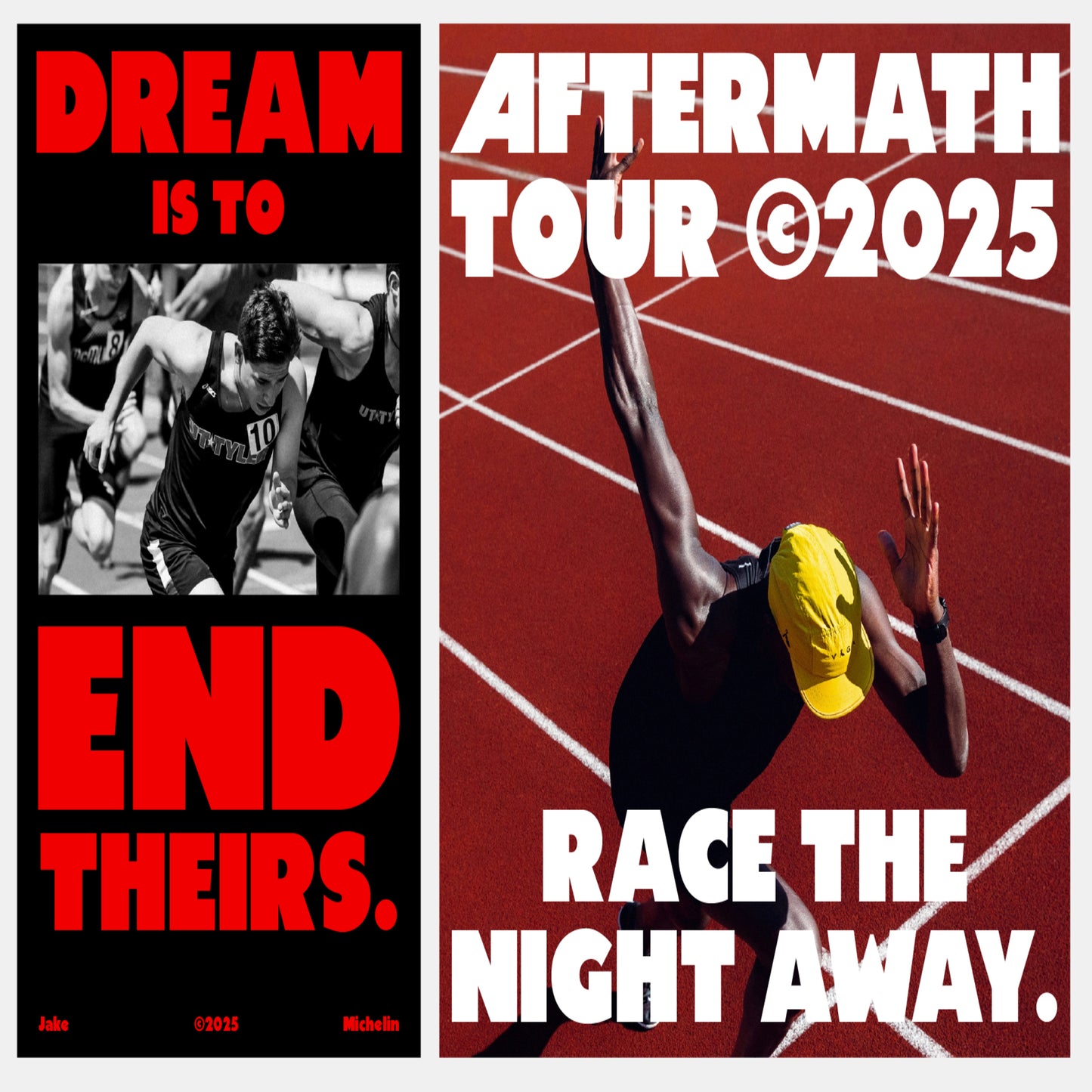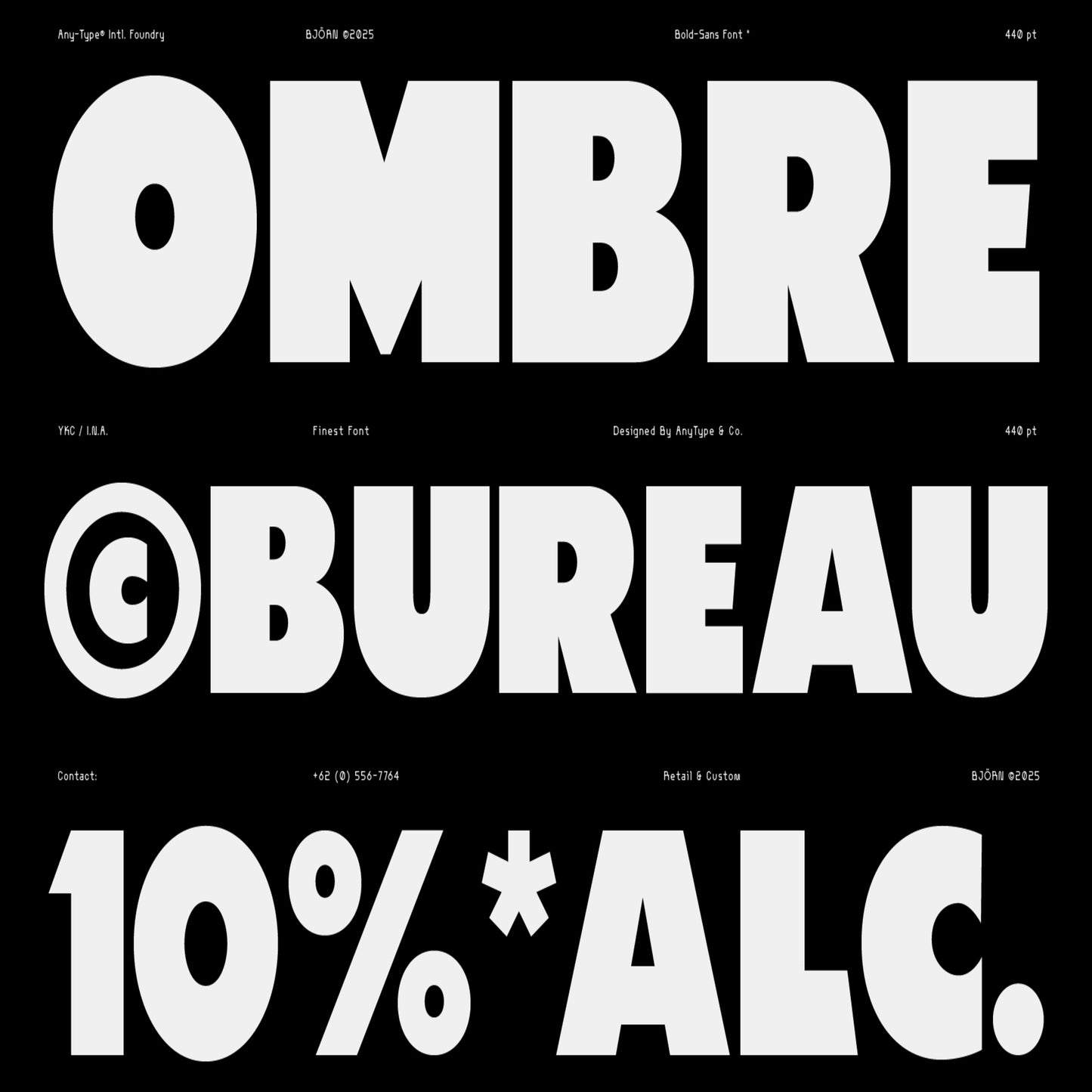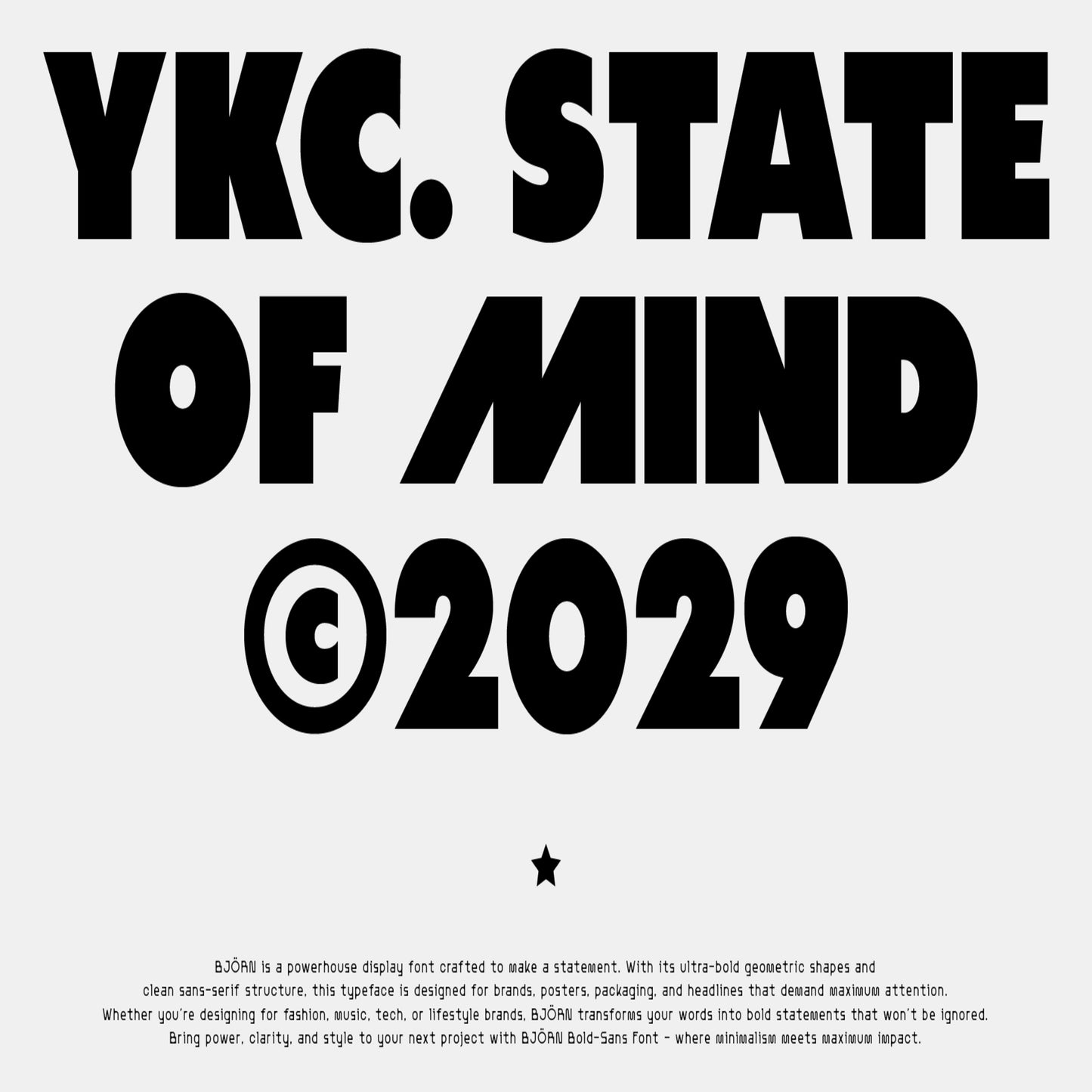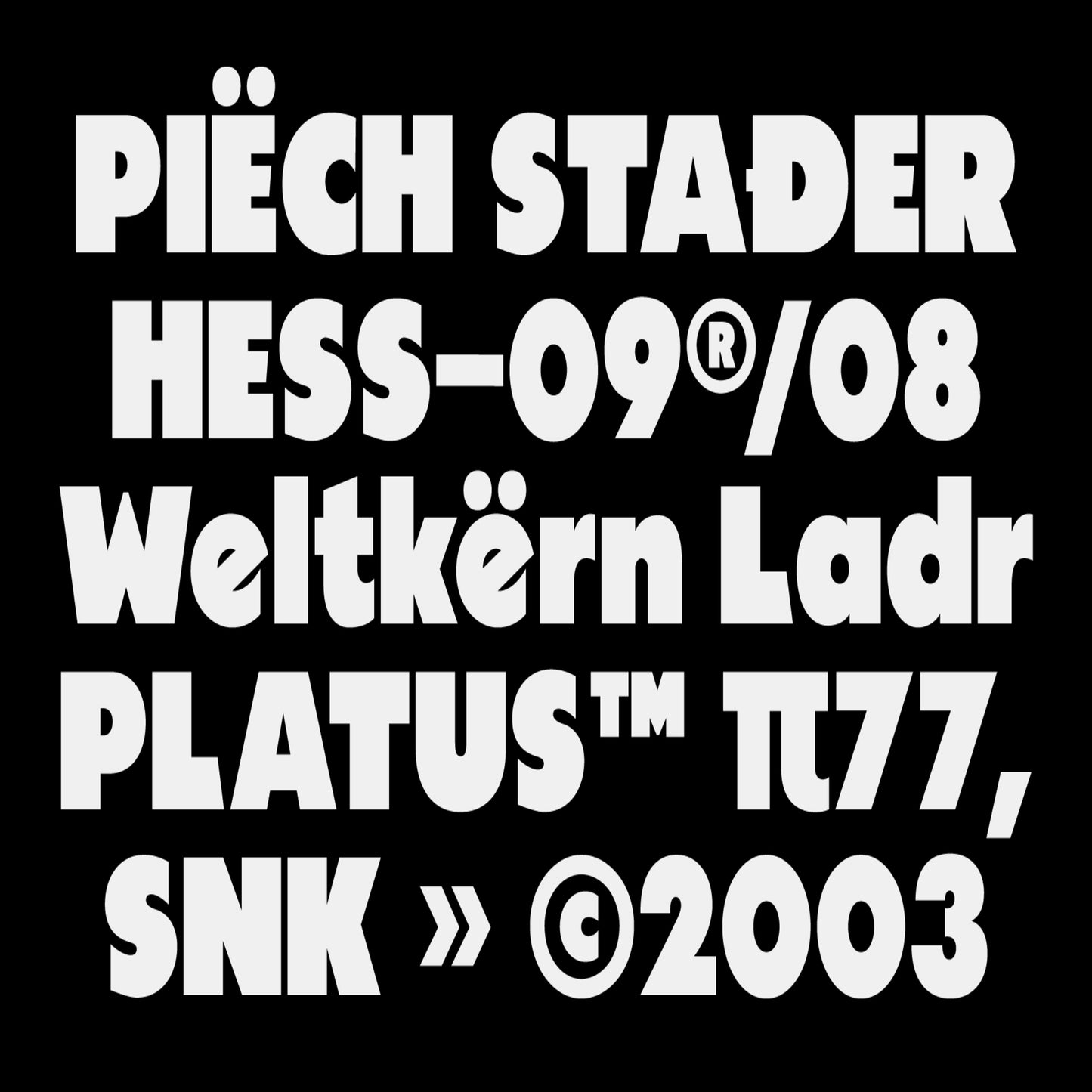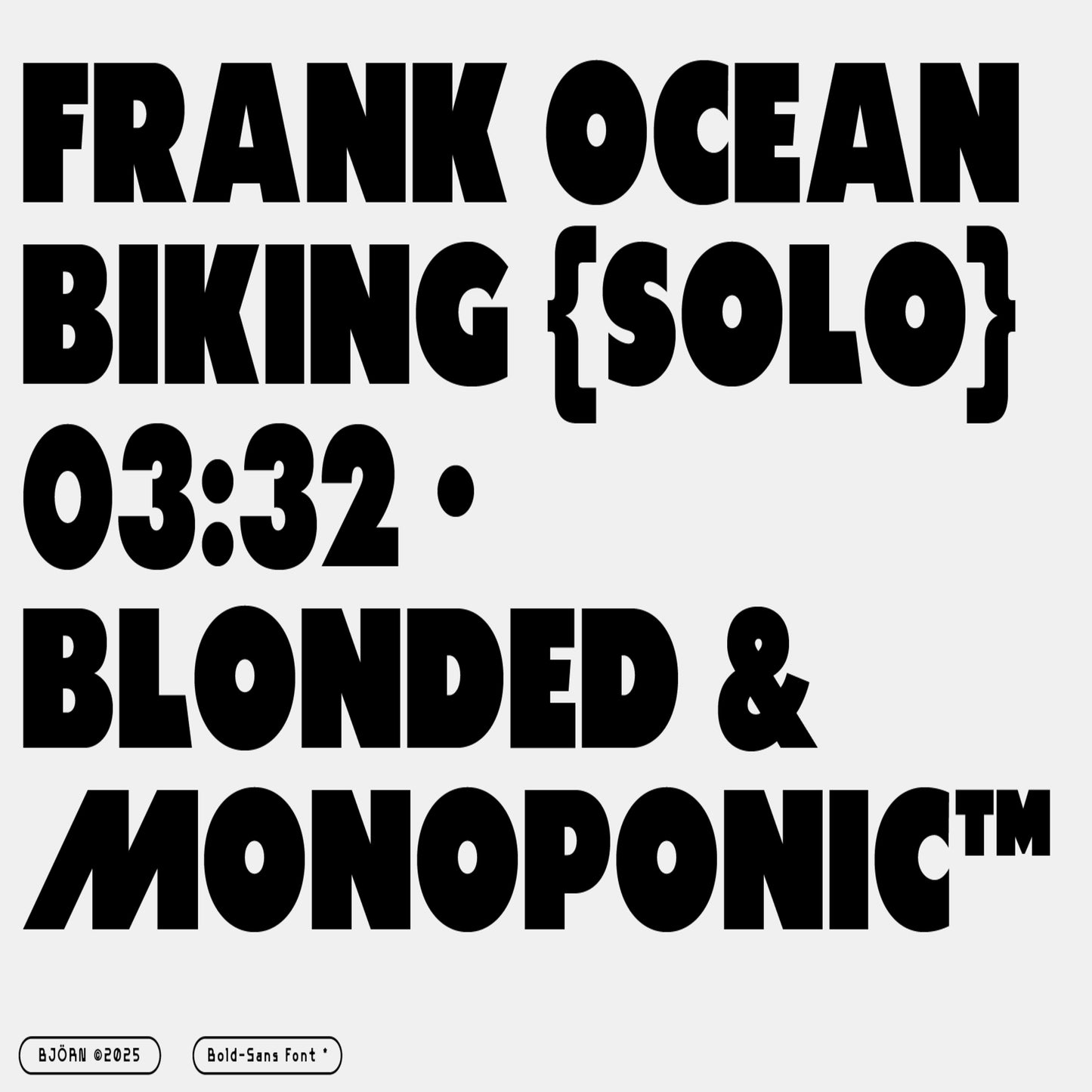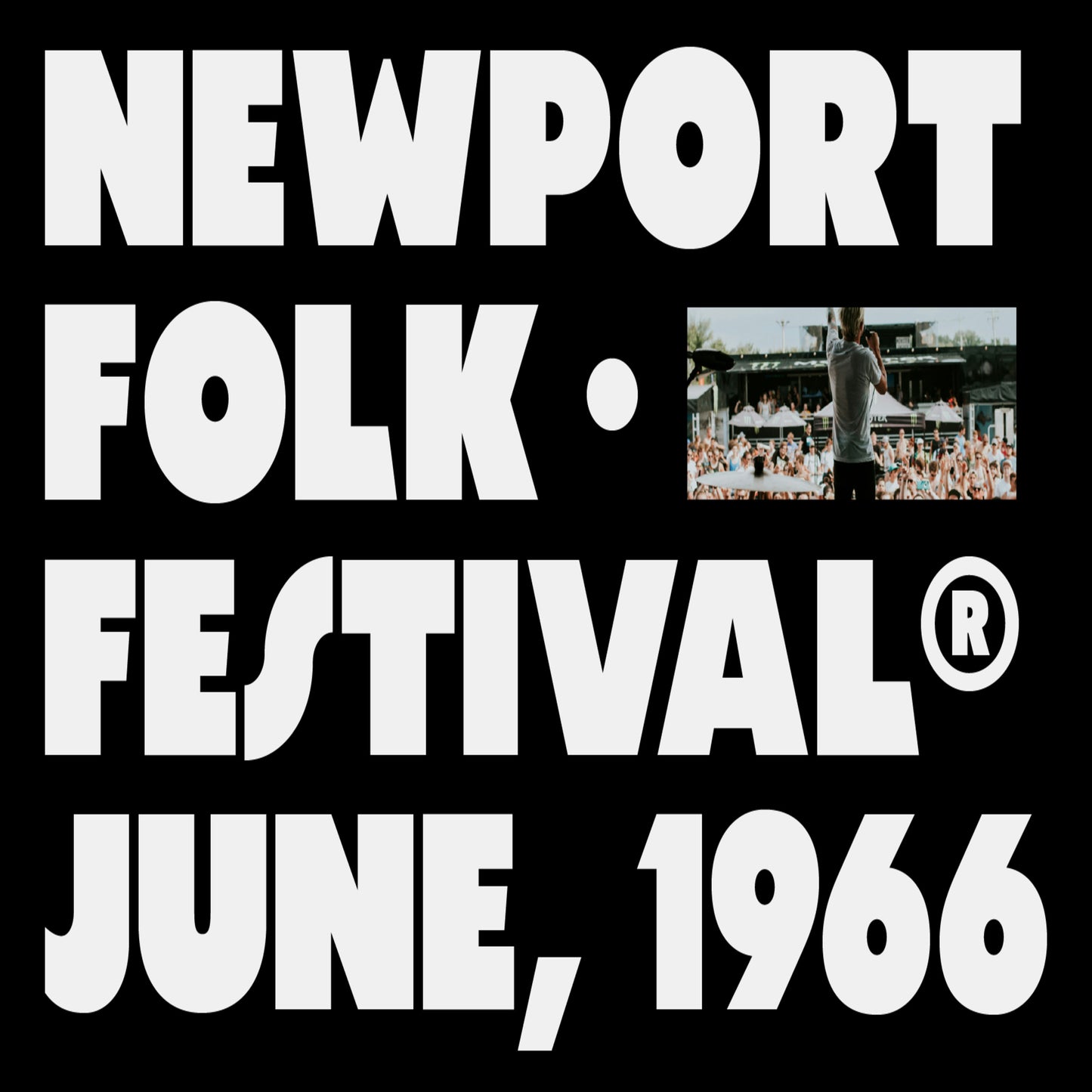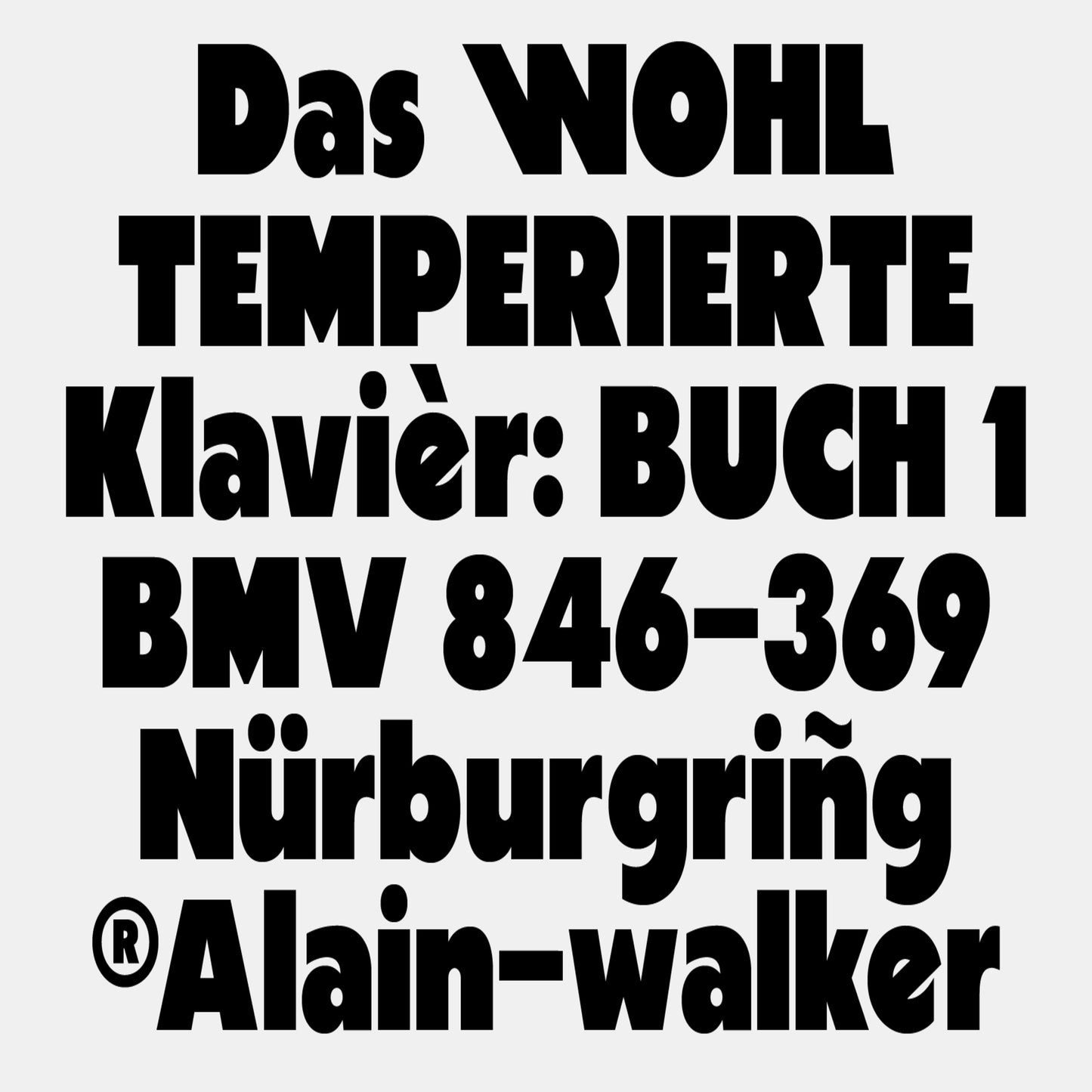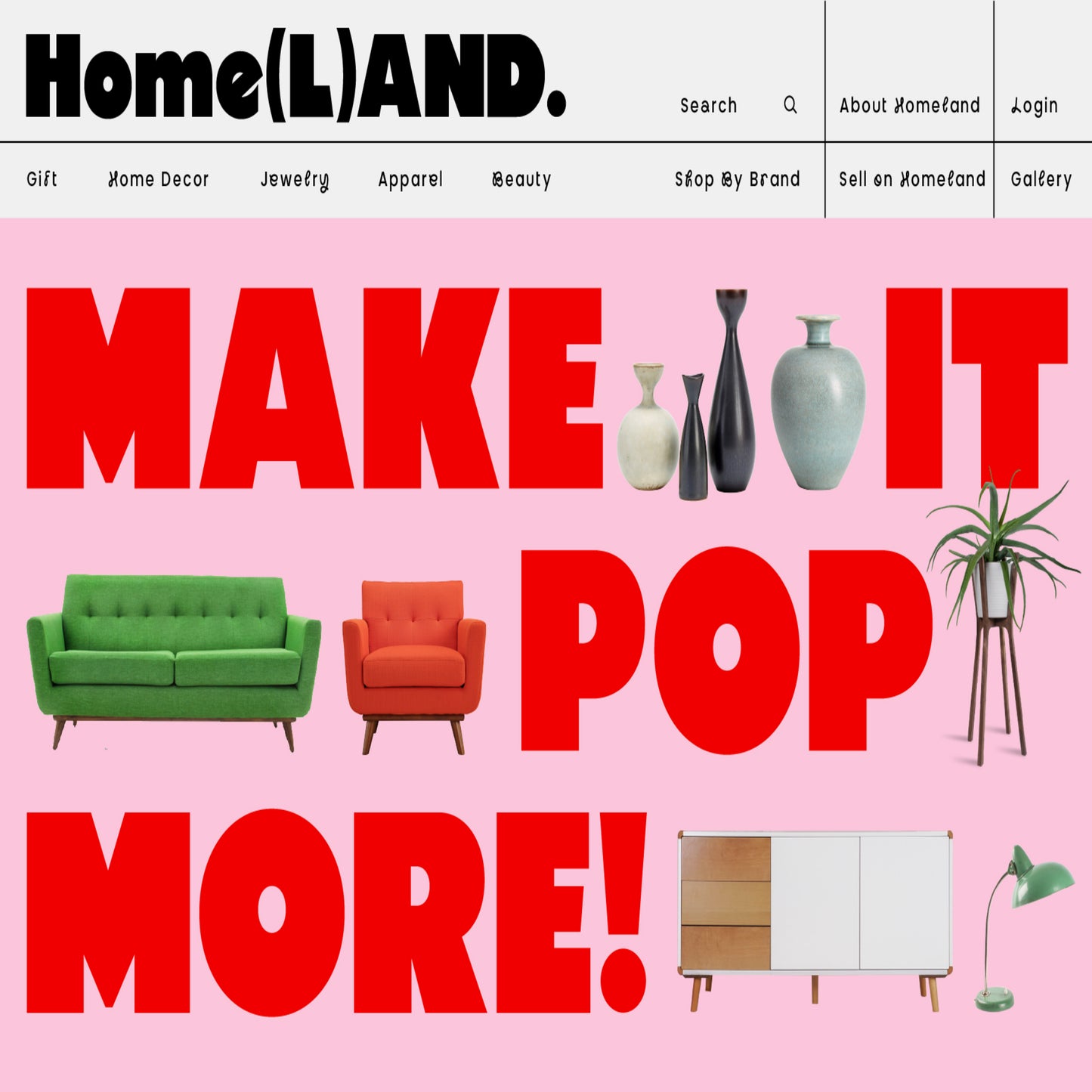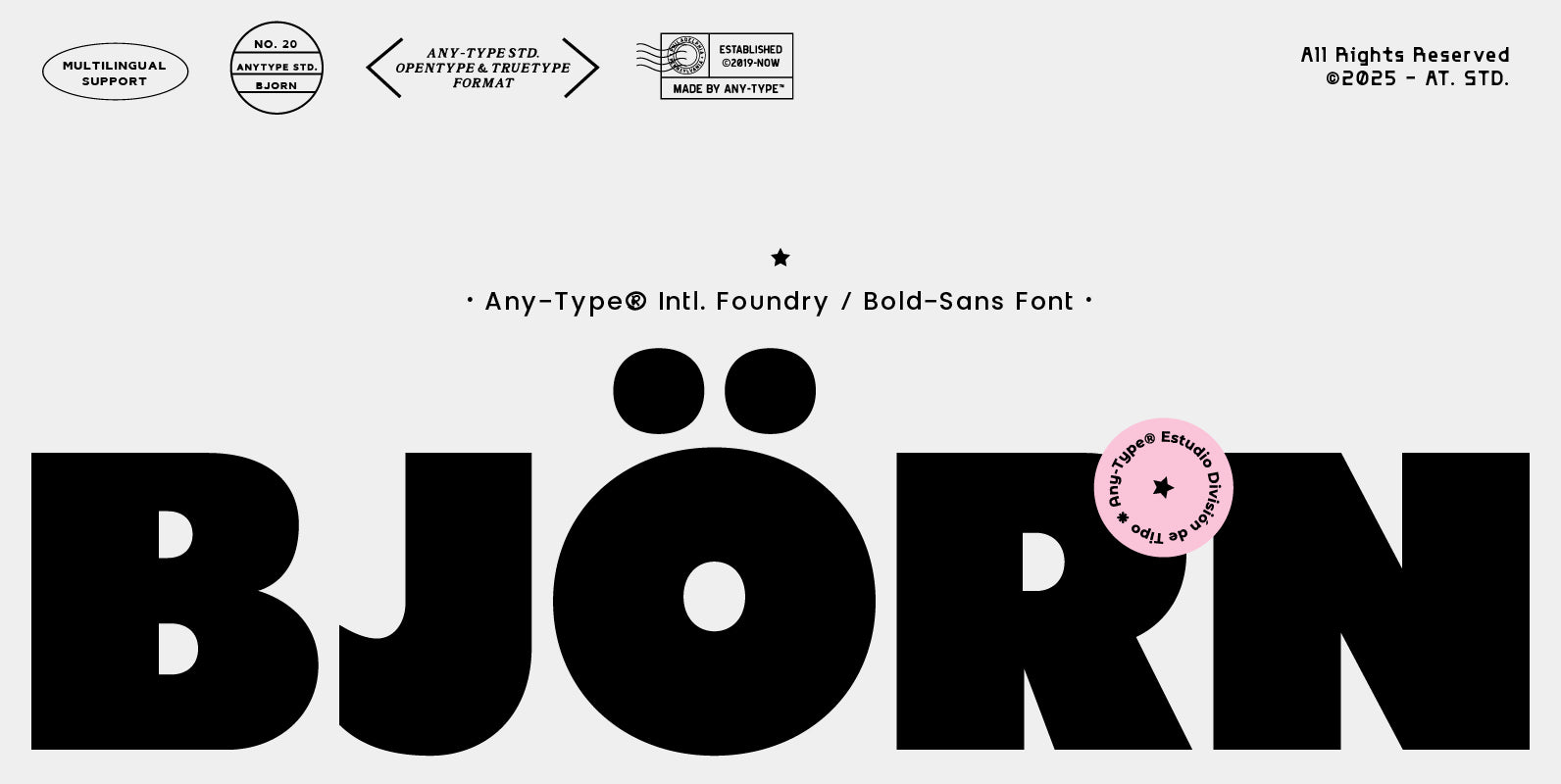
AT Björn
AT Björn is a bold display sans-serif typeface with a strong, playful, and adventurous character. Built with heavy letterforms, this font delivers a confident visual impact while keeping a friendly and approachable look.